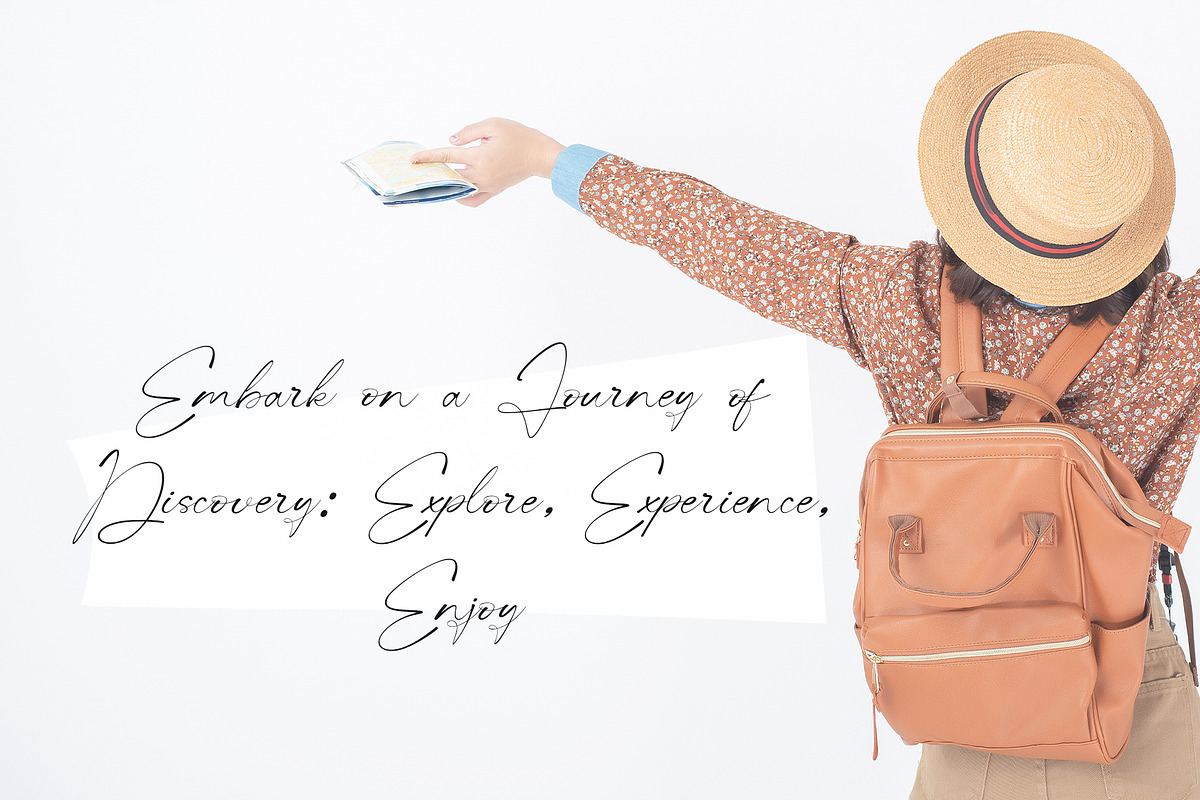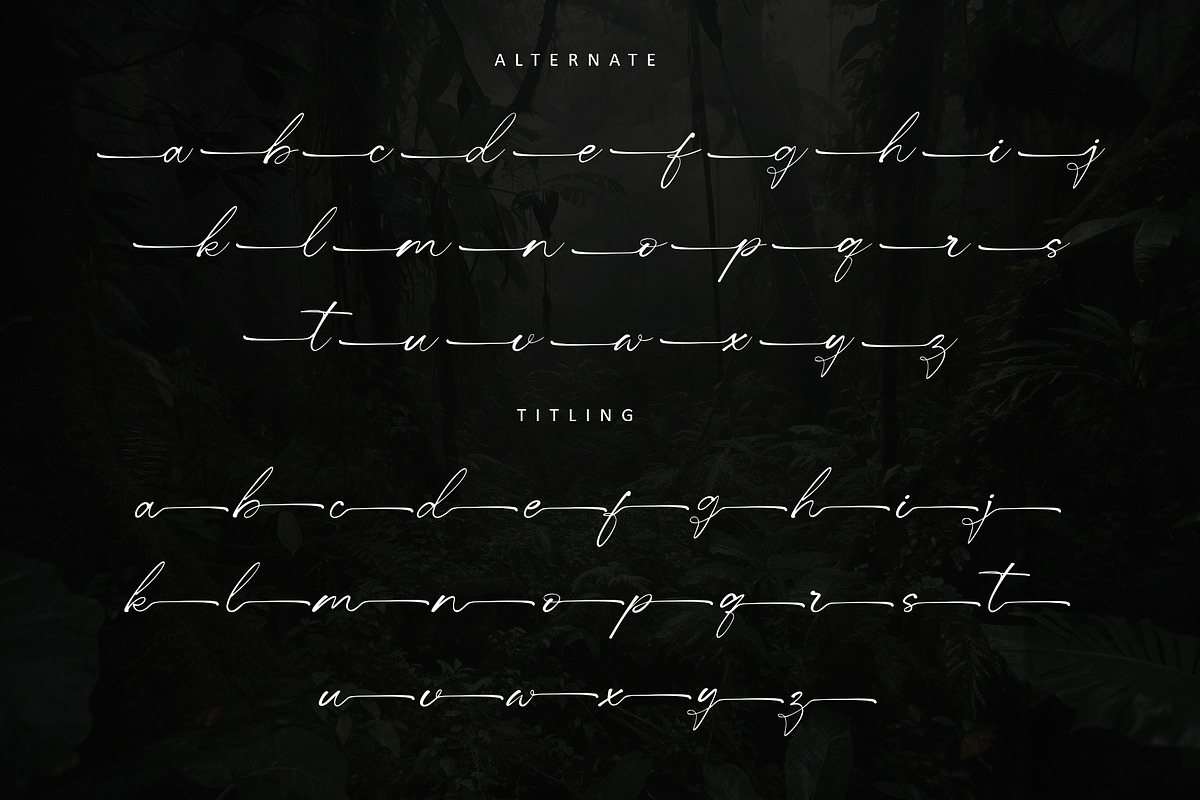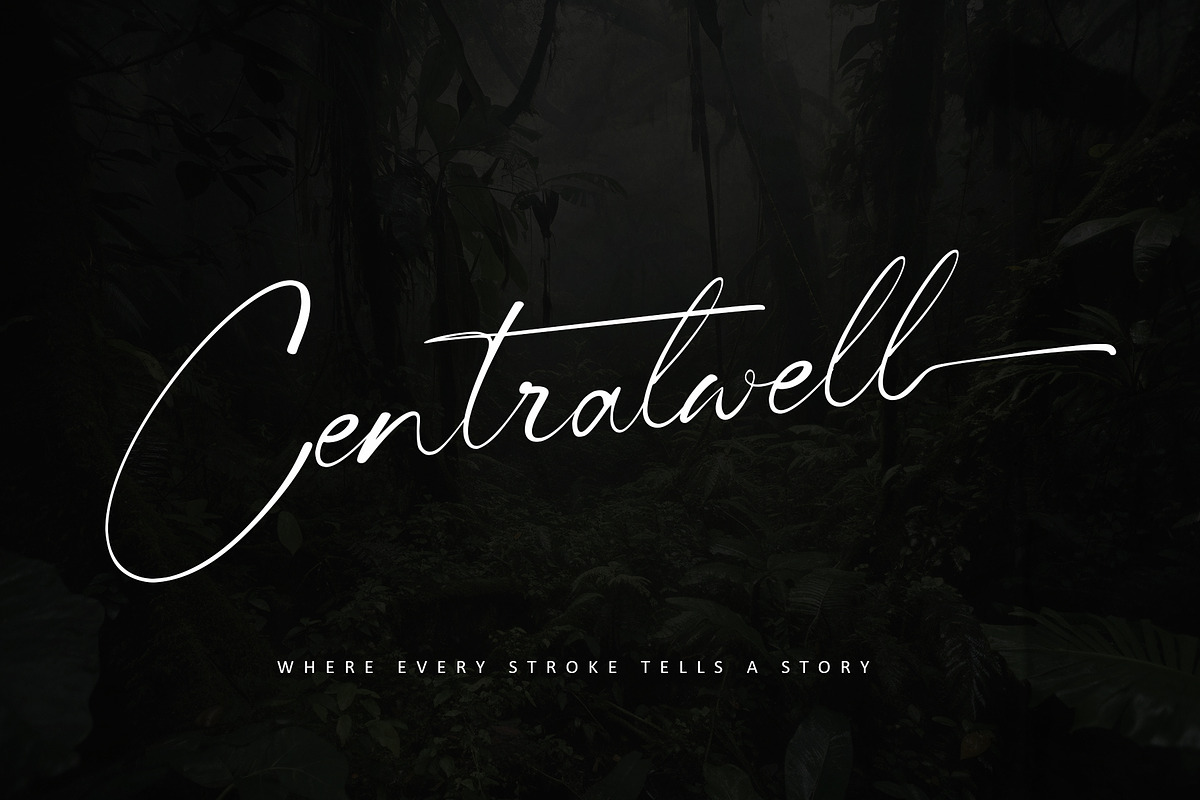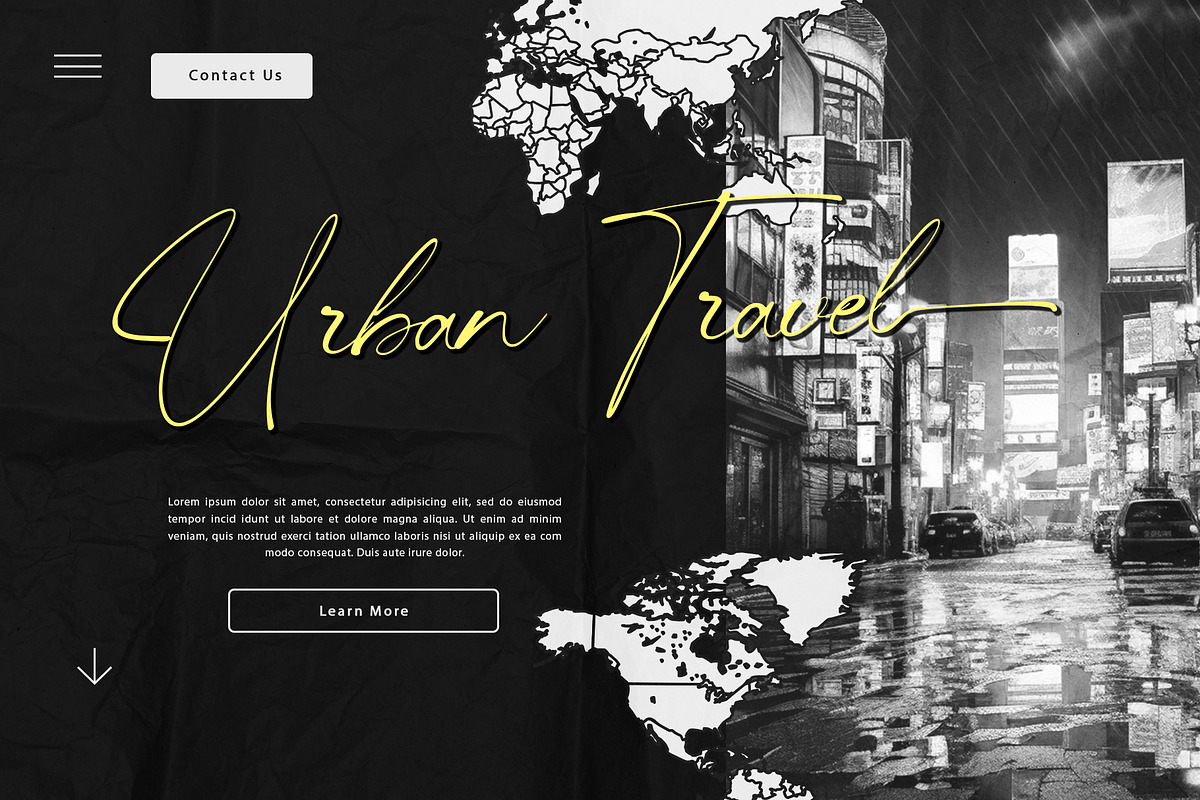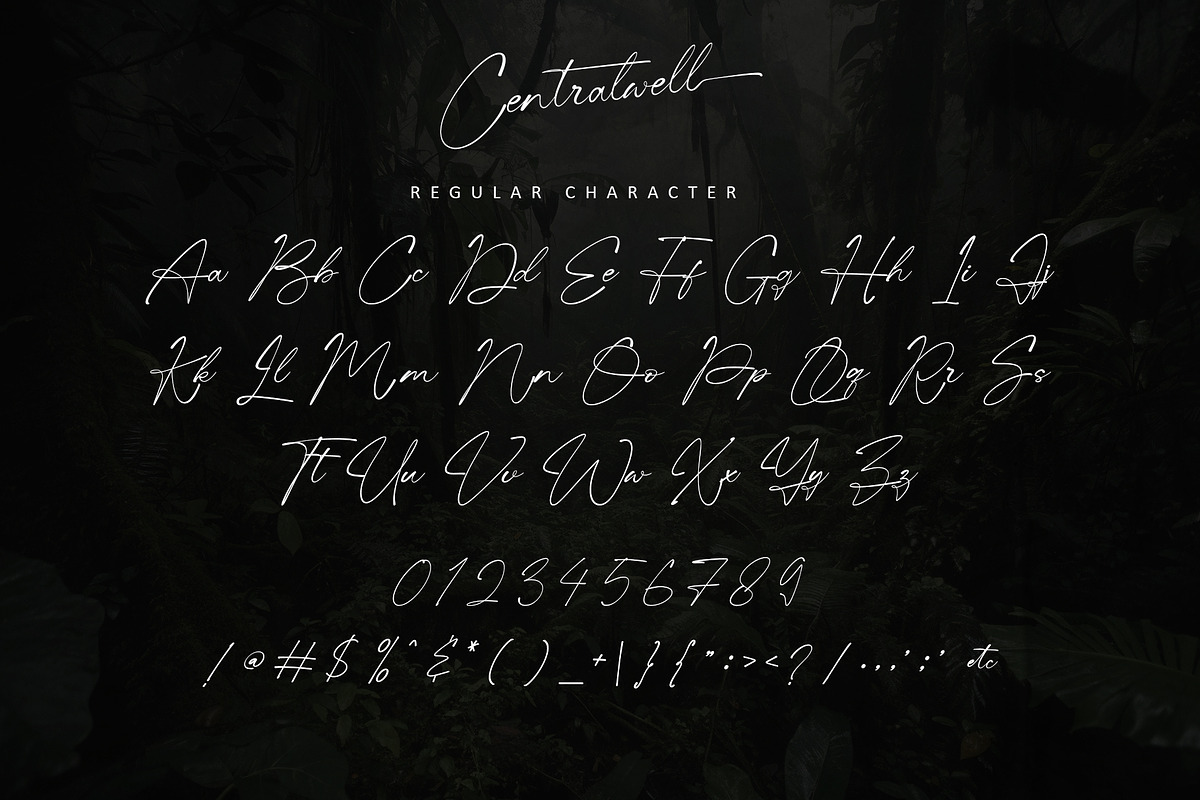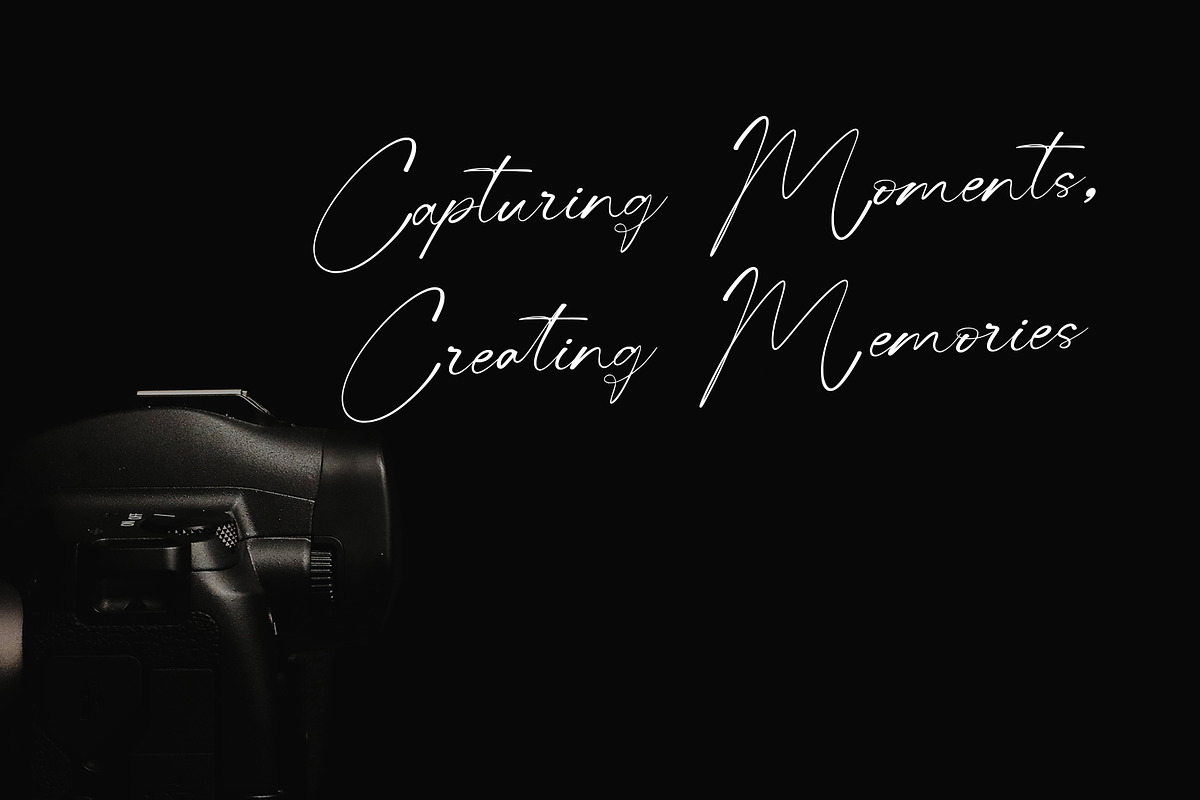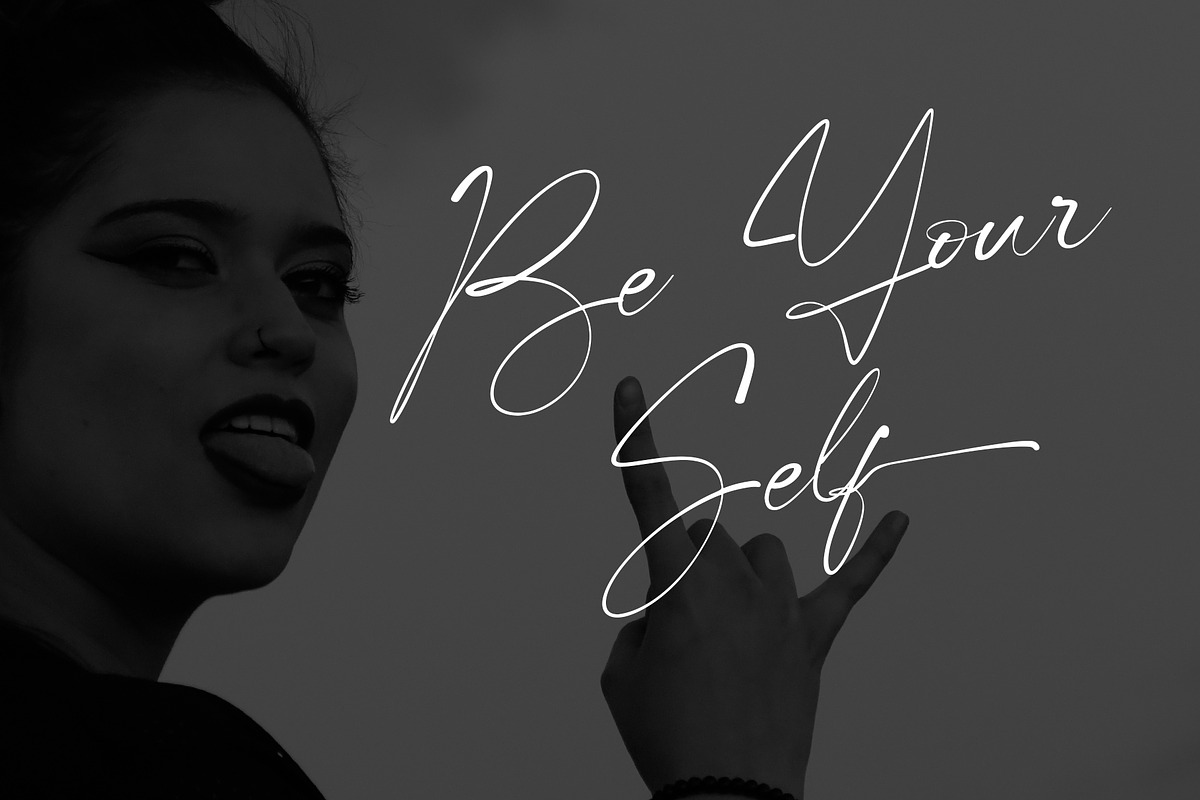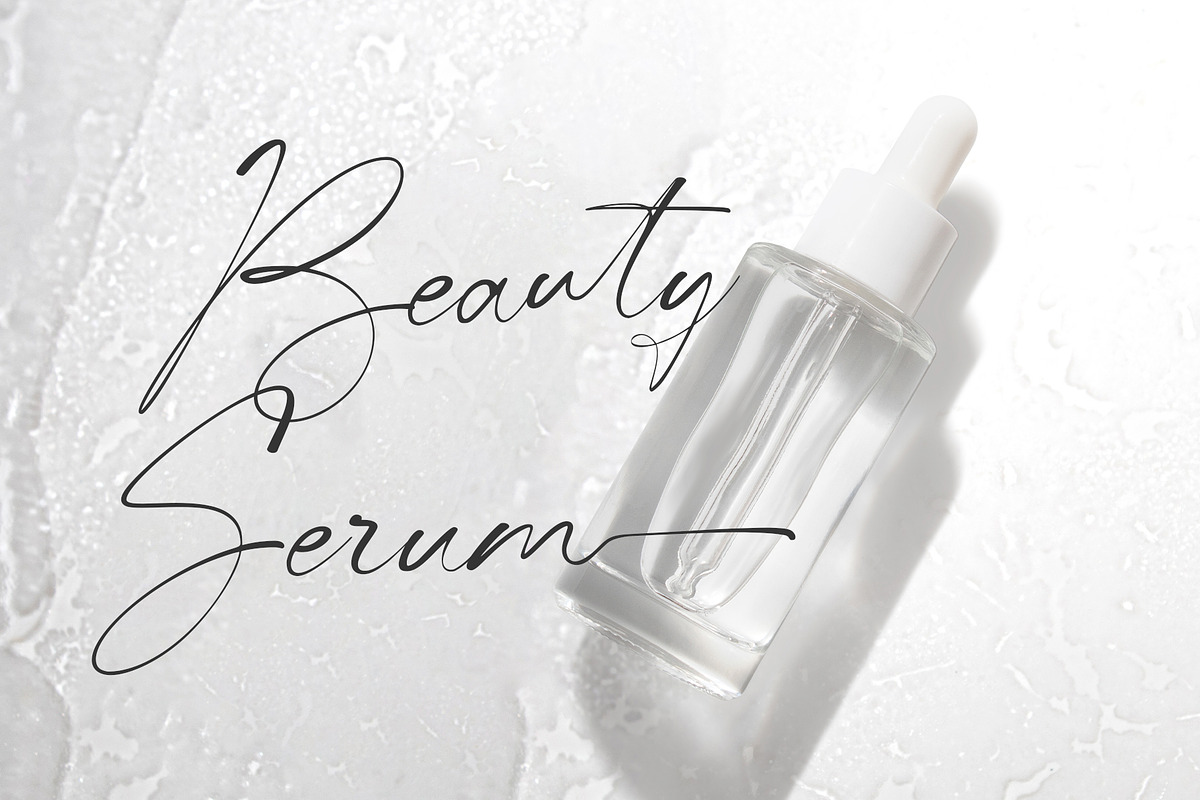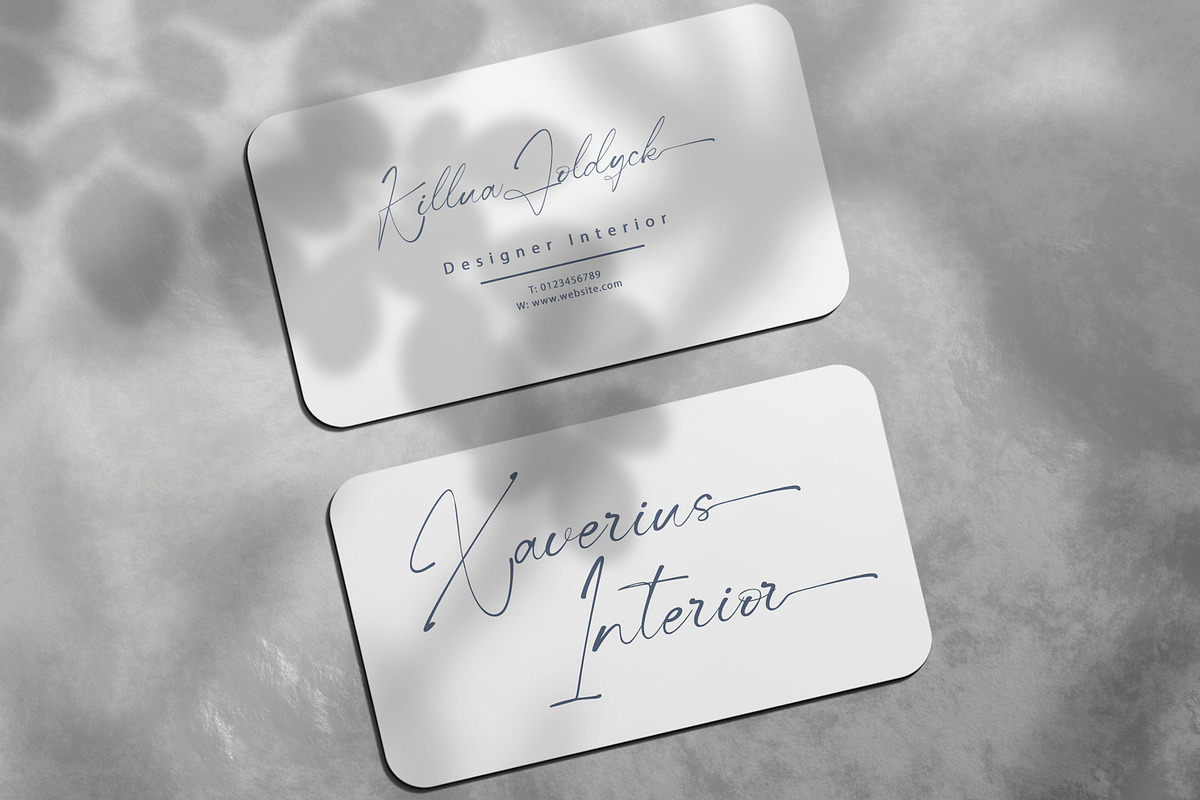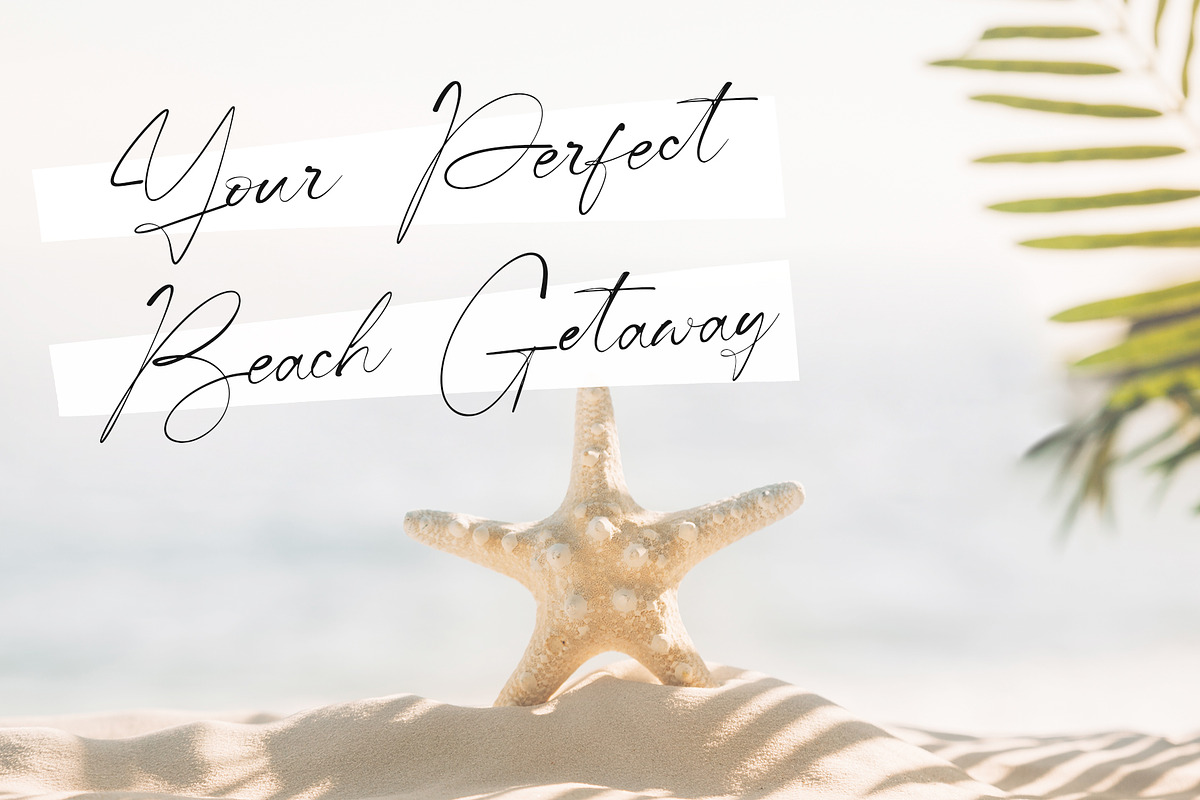
Centralwell
Introducing "Centralwell," a captivating handwritten font that exudes elegance and charm. With its fluid strokes and impeccable letterforms, this font adds a personal touch and authenticity to your projects. Whether for branding, packaging, invitations, website, posters, logos, advertising, or any creative endeavor requiring a dash of class, "Centralwell" elevates your designs with its enchanting allure. Embrace the handwritten beauty and timeless charm of "Centralwell," leaving a lasting impression with every stroke.
- lowercase and uppercase letters
- Alternate, titling & ligature *Simple installations